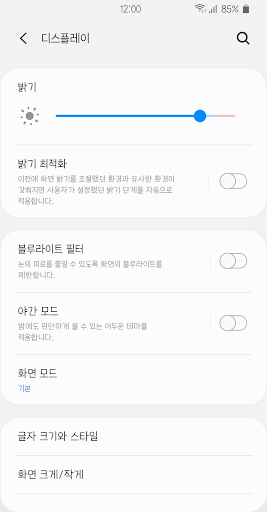
TSPicnicLunch™ Korean Flipfont
‘TSPicnicLunch™ Korean Flipfont’ is like a lunch box opened on a picnic on a sunny day. This font carries a cheerful and fresh vibe.